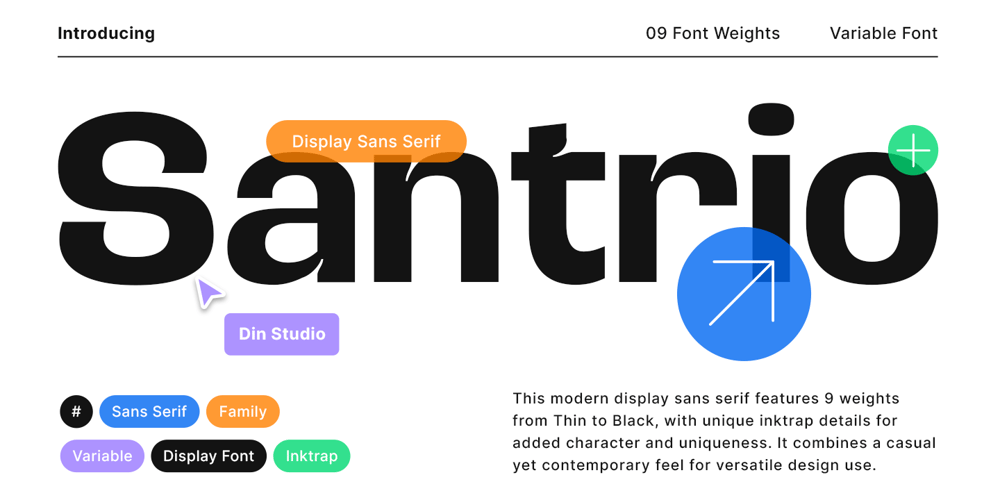
Santrio
Santrio font
Santrio Font Family was designed by Donis Miftahudin and published by Din Studio. Santrio contains 9 styles and family package options. Santrio is a modern sans-serif display font that combines simplicity and precision with a touch of uniqueness. Designed with detailed ink traps, this font not only enhances readability but also adds a subtle character to its clean and structured letterforms. With 9 different weights, from Thin to Black, Santrio provides flexibility for a wide range of design needs. Bring a balance of modern minimalism and technical craftsmanship to your designs with Santrio. In addition, enjoy the features here. Features: Multilingual Supports PUA Encoded Numerals and Punctuations Santrio fits in logos, branding, editorial design, headlines, posters, digital interfaces and many more designs. Find out more ways to use this font by taking a look at the font preview.Thanks for purchasing our fonts. Hopefully, you have a great time using our font. Feel free to contact us anytime for further information or when you have trouble with the font. Thanks a lot and happy designing.